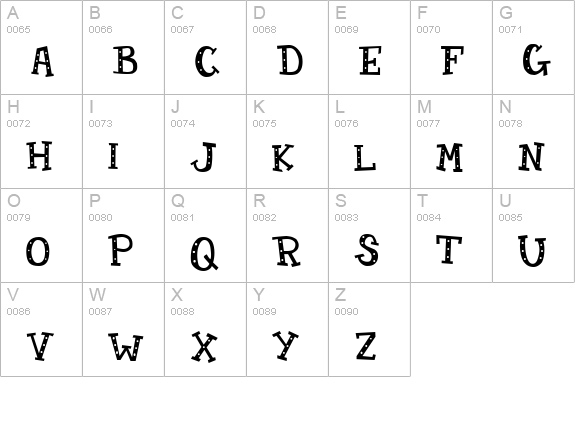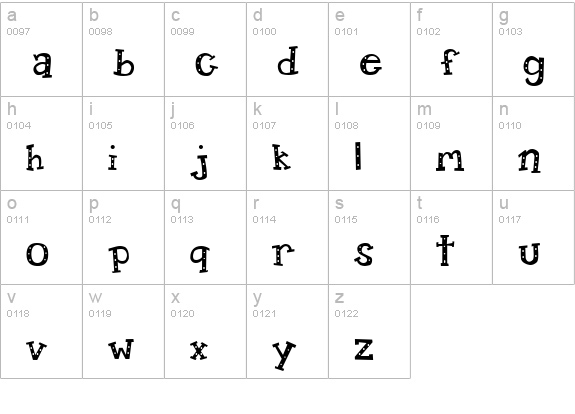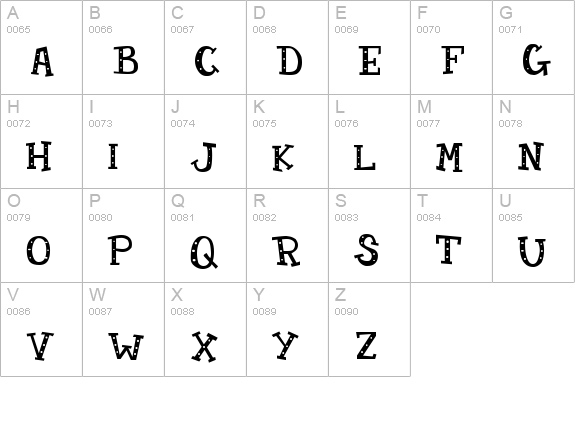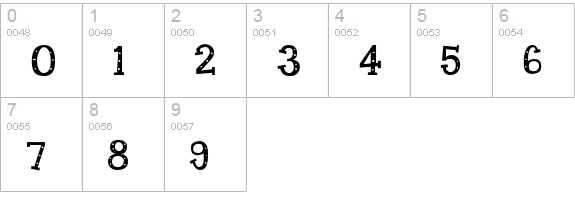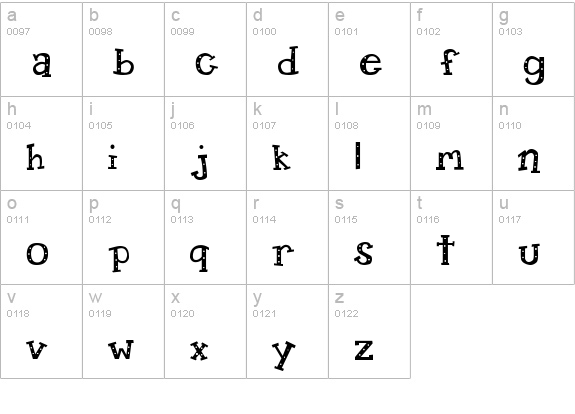
Candy Randy Font Details
Introducing Candy Randy font - a whimsical and playful typeface that is sure to add a sweet touch to your design projects. This delightful font features charming swirls and playful curves that evoke a fun and lighthearted vibe. Perfect for creating eye-catching headlines, invitations, posters, and more, Candy Randy font is a versatile choice for any creative project. The best part? Candy Randy font is available for free download at FontsMarket.com. This means you can easily add this delightful font to your collection without any cost. Whether you're a seasoned designer looking to add a touch of whimsy to your work or a hobbyist exploring new fonts, Candy Randy font is a fantastic choice that won't break the bank. Download Candy Randy font today and let your creativity shine with this fun and free typeface!